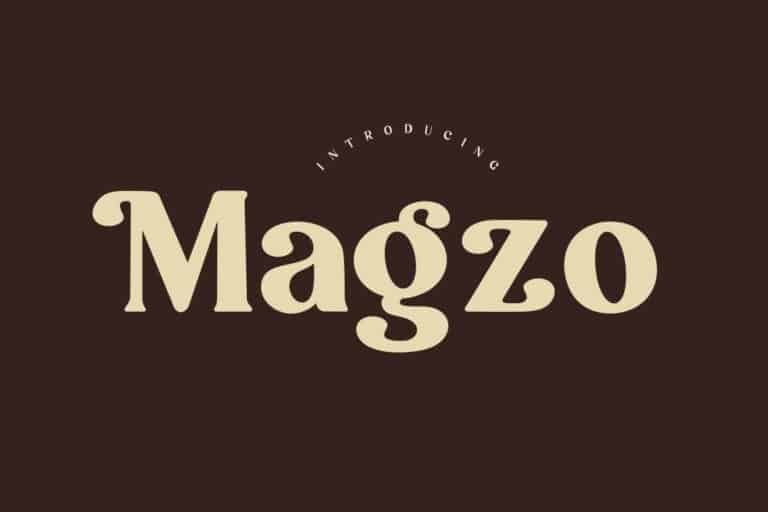
Magzo Serif Font Free
Magzo Serif Font is modern sans serif font. Made for any professional project branding. Made from font designer named HansCo.
it will make your design project more beautiful. It is the best for branding, printing, wedding and quotes. Every letter has a unique and beautiful touch. The font is suitable for any design like branding, fashion, print template, quotes, wedding and etc.